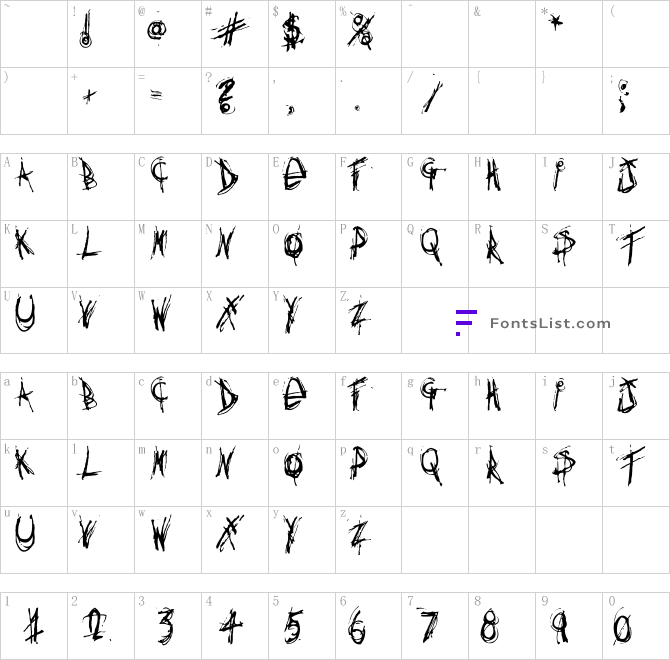
- Font Name:Anything You Want
- Copyright:copyright Alex C 2001. - "Anything you want" A grunge handwriting font, made from my graffiti caps writing.
Anythingyouwant.ttf is a very beautiful artistic font, Anythingyouwant.ttf is widely used in the design and printing of various books and pictures,Anythingyouwant.ttf has a strong visual impact,Anythingyouwant.ttf is a commonly used font in newspapers, magazines and books, and is used in posters, e-commerce Poster design, store design, logo design, font design and other fields.Anythingyouwant.